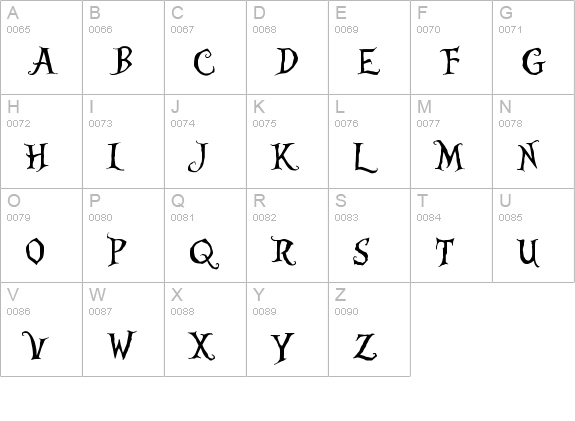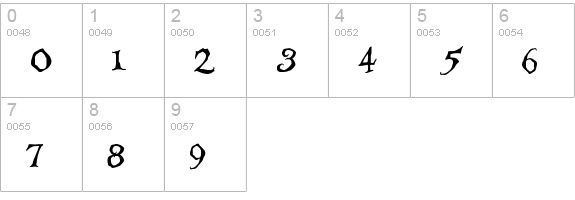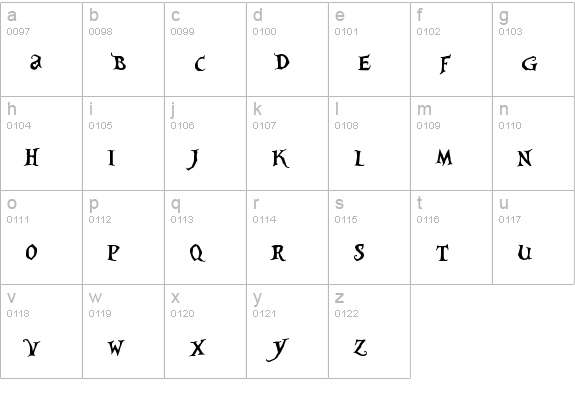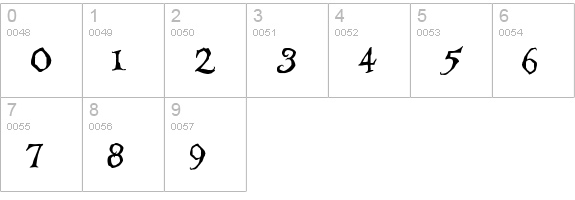
Alice in Wonderland Font Details
Introducing the extraordinary and whimsical Alice in Wonderland font! Experience a journey into a fantastical world where letters come to life in a playful and charming manner. This font captures the essence of Lewis Carroll's timeless tale, bringing to life the curious and imaginative spirit of Alice and her adventures in Wonderland. With its intricate detailing and enchanting design, the Alice in Wonderland font is sure to captivate and delight. Each letter is meticulously crafted to reflect the whimsy and wonder of this beloved story, allowing you to create stunning and captivating designs that truly stand out. But what makes the Alice in Wonderland font truly remarkable is that it is not only a work of art, but it is also freely available to download at FontsMarket.com. Yes, you read that right - this extraordinary font can be yours without any cost. It is our way of spreading the joy and magic of Alice in Wonderland to creative minds everywhere. Whether you're a graphic designer, a writer, or simply a fan of Alice in Wonderland, this font is a must-have addition to your collection. Use it to bring your designs, projects, and creations to life with a touch of whimsy and imagination. From invitations and greeting cards to posters and branding materials, the Alice in Wonderland font will add a unique and enchanting element to any project. So why wait? Embrace the magic of Alice in Wonderland and unleash your creativity with this extraordinary font. Download it freely at FontsMarket.com and embark on a journey of limitless possibilities. Let your imagination run wild and bring the wonder of Wonderland to life with every stroke of the keyboard.